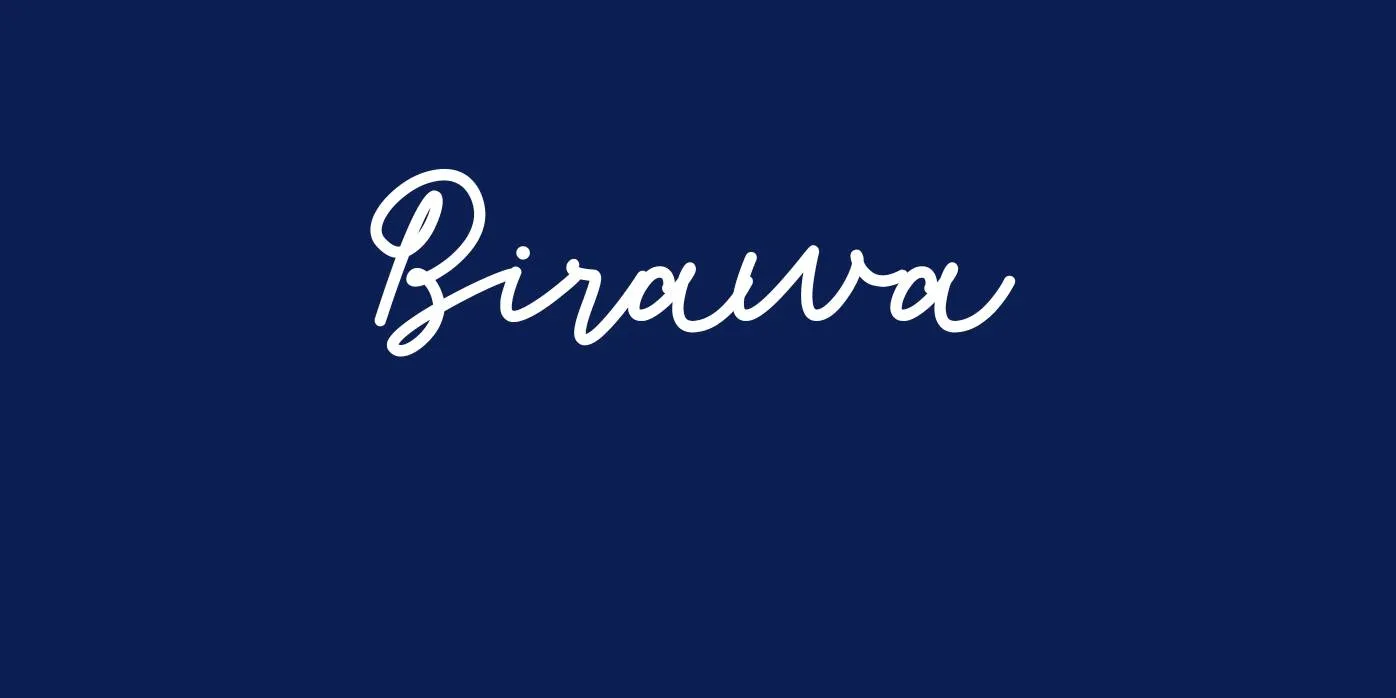
Birawa Font
You are going to read about the handwritten type of font. Birawa Font is a handwritten texture. Kong Font is the designer of this typeface. There are 214 unique glyphs for this typeface.
The characters of this typeface are stylish. This typeface is a handwritten type of font. The typeface that has fantastic visual effects with this typeface is the vienetta font. This pair has free services for a lot of projects and designs that do not generate any type of money.